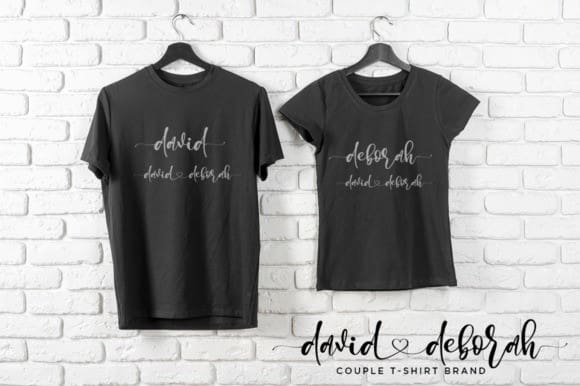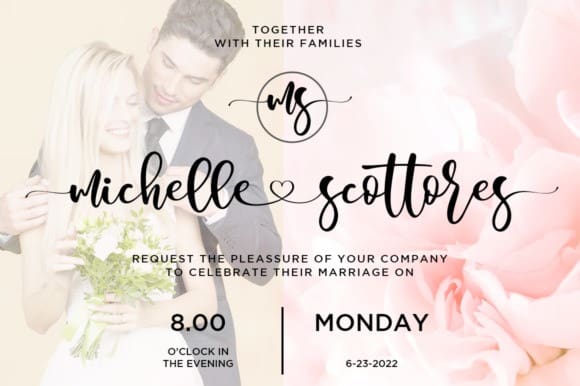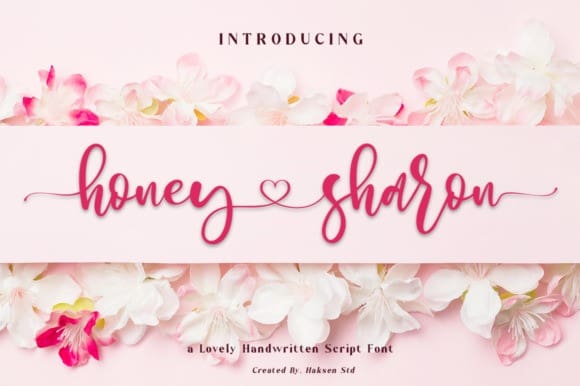
Honey Sharon Font
Honey Sharon Font is a stylish modern handwritten script font with a casual flair. It is perfect for branding, signature, wedding invitation, promotion, product packaging, and other needs. This font is PUA encoded which means you can access all of the glyphs and swashes with ease!